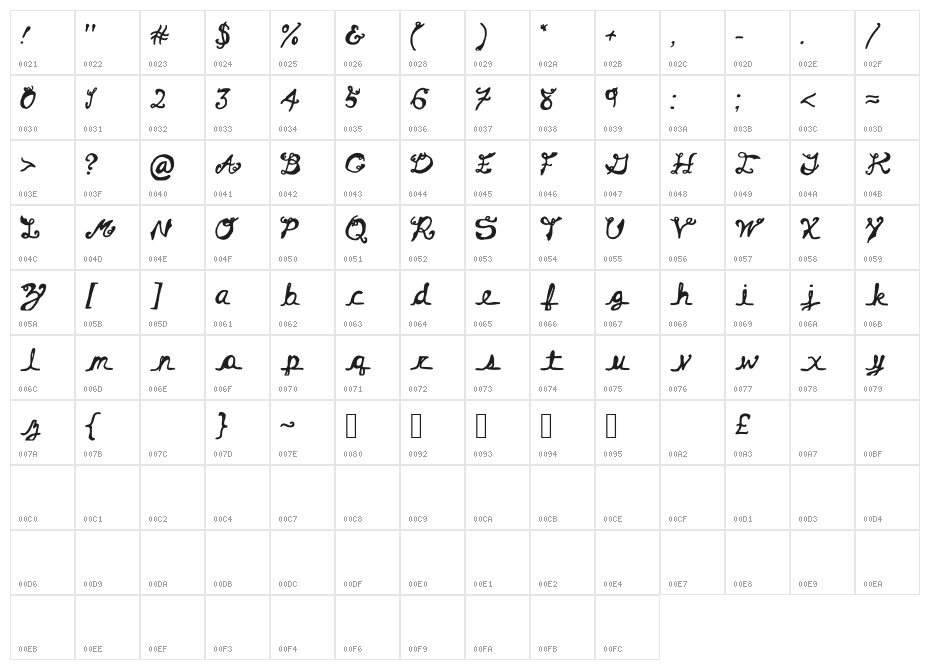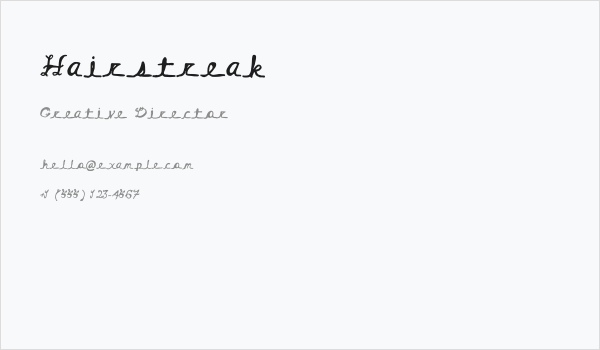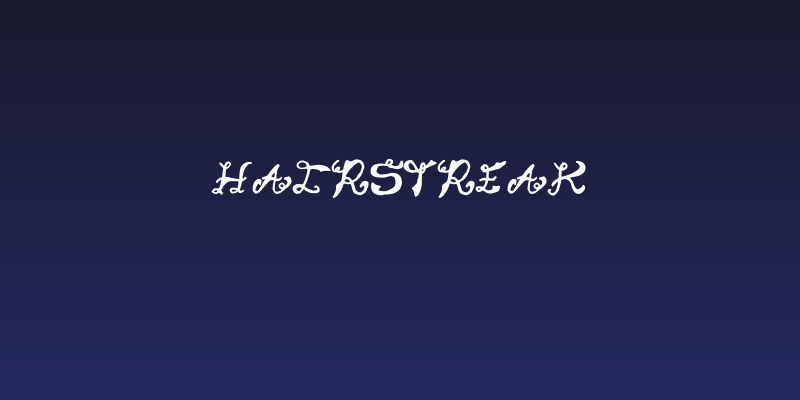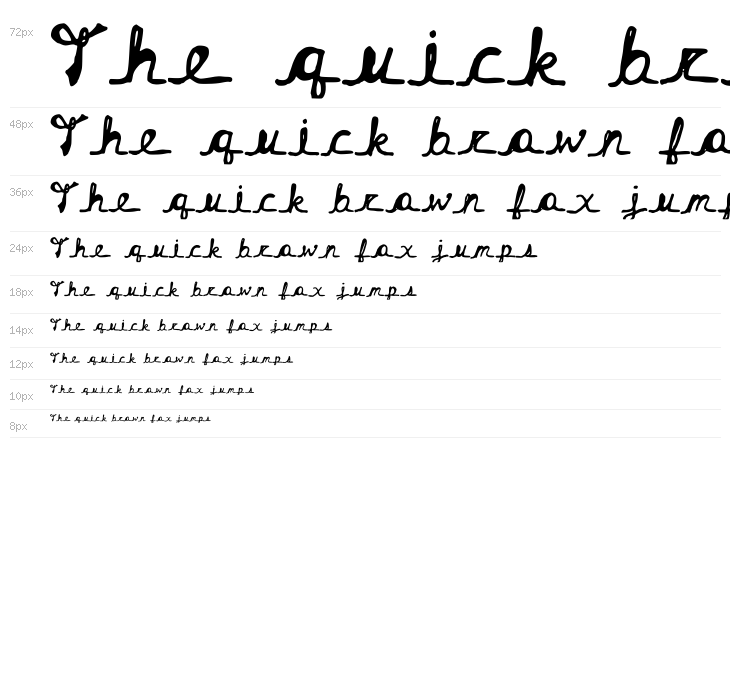
Hairstreak Font
Hairstreak Description
This font features a whimsical and playful style, characterized by its curly and looping strokes. Each letter is adorned with unique embellishments, giving it a hand-drawn, artistic feel. The uppercase letters are bold and expressive, while the lowercase letters maintain a consistent flow with a slightly more subdued appearance. Numbers and special characters follow the same decorative theme, making the font suitable for creative and informal applications. The overall design is reminiscent of a lively script, perfect for adding a touch of personality and charm to any project.
| Proposed Projects | Ideal for greeting cards, invitations, children's book covers, and playful branding. |